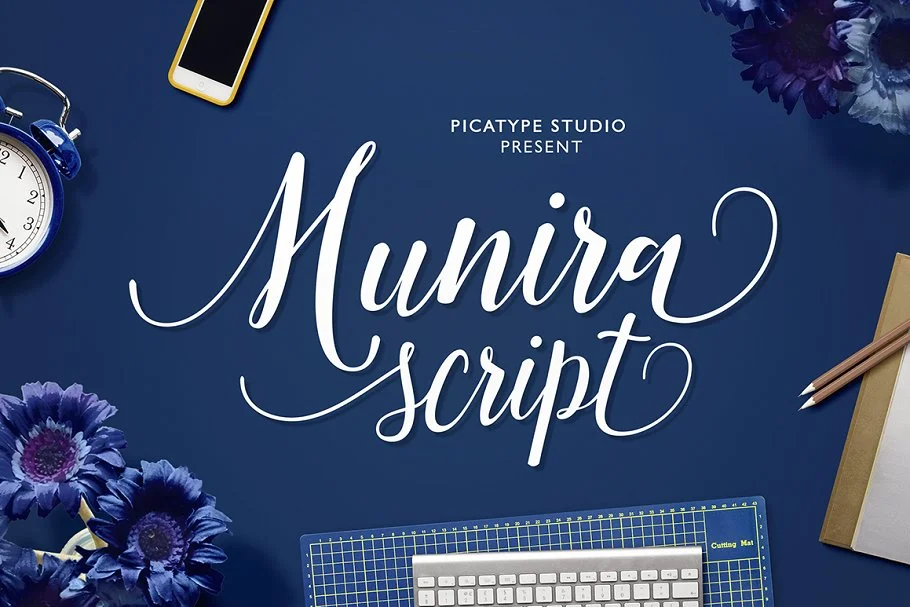
Munira Script Font
Munira Script Font is perfect for elegant wedding invitations, luxury brand signatures, feminine beauty logos, sophisticated stationery design, high-end fashion labels, premium greeting cards, romantic social media quotes, boutique business branding, personal calligraphy projects, and exclusive event materials.
Munira Script Font is exciting because it captures the flowing grace and timeless elegance of master calligraphy through fluid letterforms that dance across the page with natural beauty and sophisticated charm. This exquisitely crafted script combines traditional calligraphic artistry with contemporary design functionality, making it perfect for brands that want to communicate luxury, femininity, and handcrafted quality.
The Munira Script Font family includes the main flowing script style with connecting letterforms, plus alternate characters, decorative swashes, and ornamental flourishes. The font features elegant ligatures, stylistic variations, and graceful beginning and ending swashes that enhance the calligraphic authenticity and provide extensive creative flexibility.
Munira Script Font Free Download offers designers access to premium calligraphic typography that brings handcrafted elegance to digital design projects. This beautifully executed typeface has been meticulously developed to preserve the organic flow and artistic character of traditional pen calligraphy while ensuring consistent performance in modern applications. The font's graceful curves and sophisticated details create immediate luxury appeal and emotional connection.
The calligraphic beauty of Munira Script Font makes it an invaluable resource for luxury brands, wedding professionals, and designers who need typography that conveys elegance and personal attention to detail. The font's flowing character helps establish premium brand positioning and creates intimate connections with audiences seeking sophisticated, handcrafted experiences and personalized services.
Wedding planners, luxury retailers, and beauty professionals consistently choose Munira Script Font for its ability to communicate refinement and feminine elegance through typography. The font excels in applications where creating emotional resonance and luxury appeal are essential to success, making it particularly effective for high-end services, exclusive products, and romantic celebrations.
This font's comprehensive character set includes flowing letterforms with natural connections, elegant numerals, decorative punctuation marks, and ornamental symbols that support authentic calligraphic composition. The careful balance between artistic expression and practical functionality ensures professional results while maintaining the handcrafted elegance that makes Munira Script Font Free Download perfect for luxury design applications.